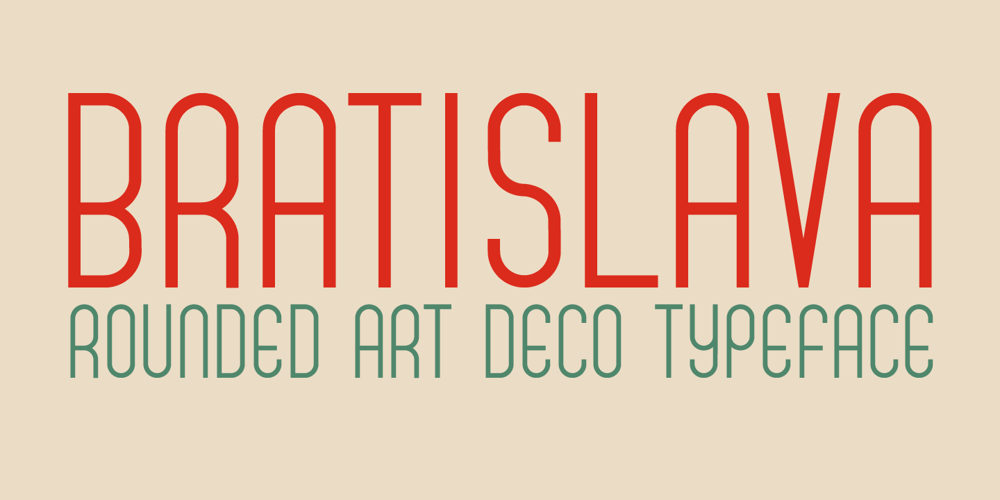
Bratislava Font Family was designed by David Kerkhoff and published by Hanoded. Bratislava contains 2 styles and family package options. Bratislava is a rounded and elongated art deco typeface, based on several posters from the 1920’s. Bratislava is slender and elegant and would look good on packaging and posters.